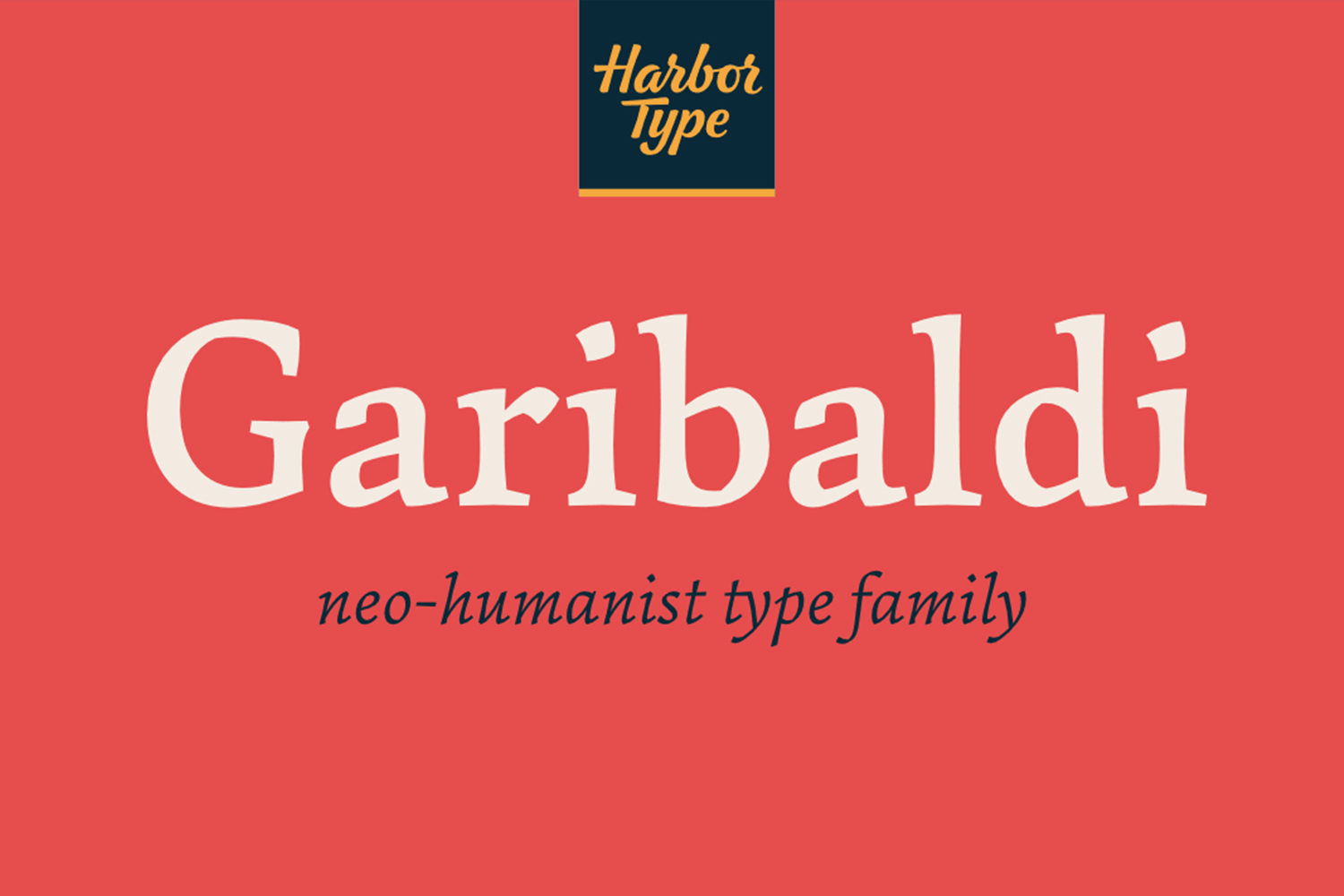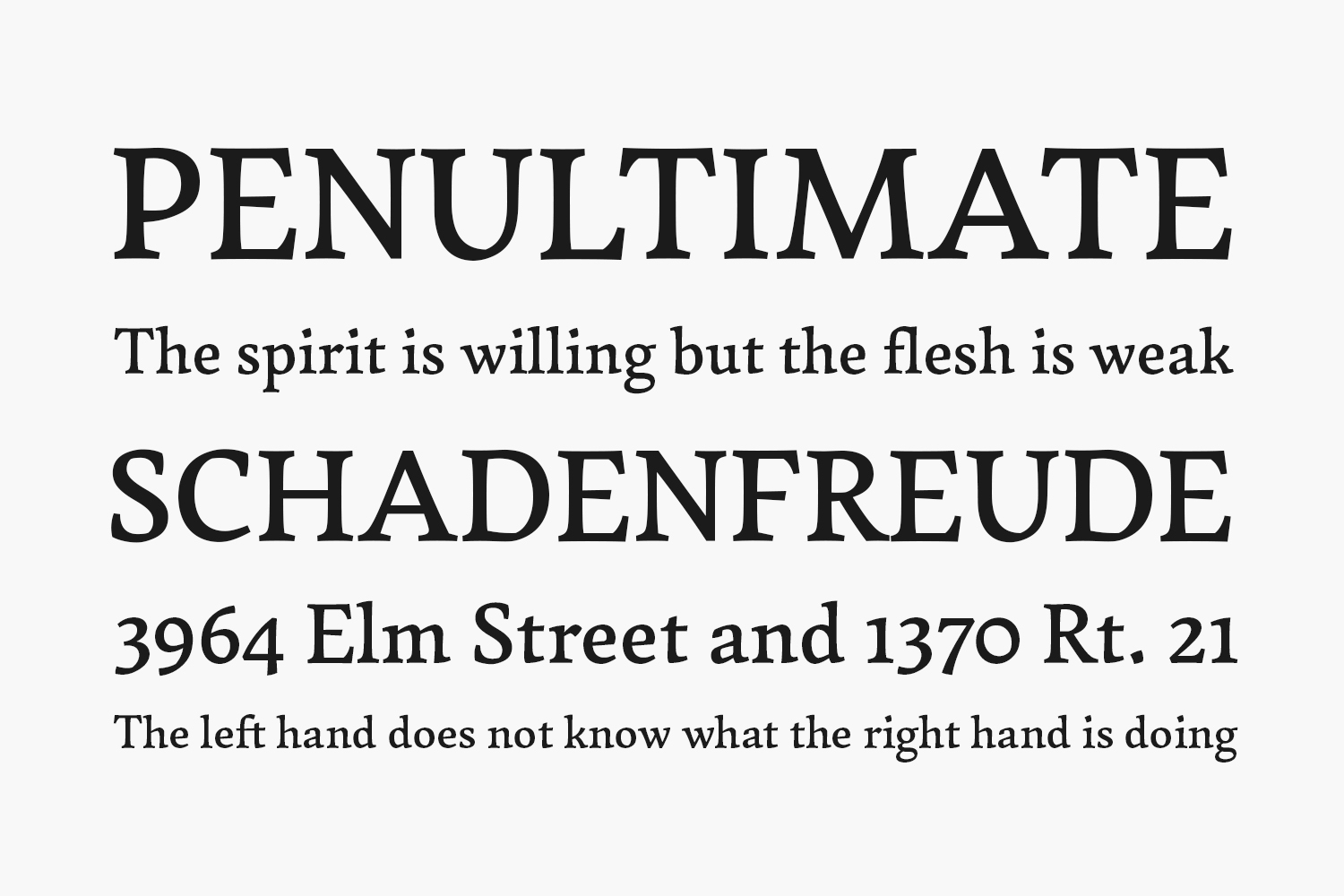
Garibaldi Free Font is a text typeface based on humanist calligraphy. This font family was expanded with more weights and matching italics, making it a solid choice for setting books, magazines and documents.